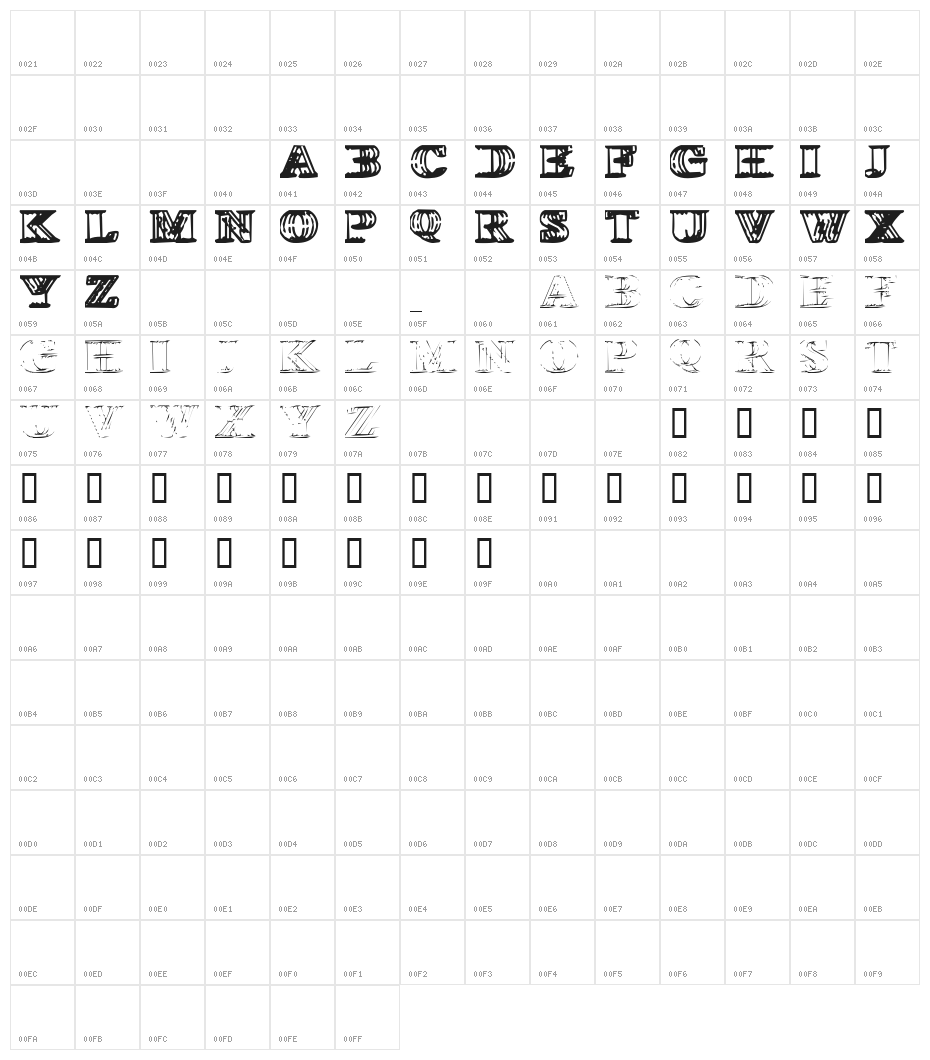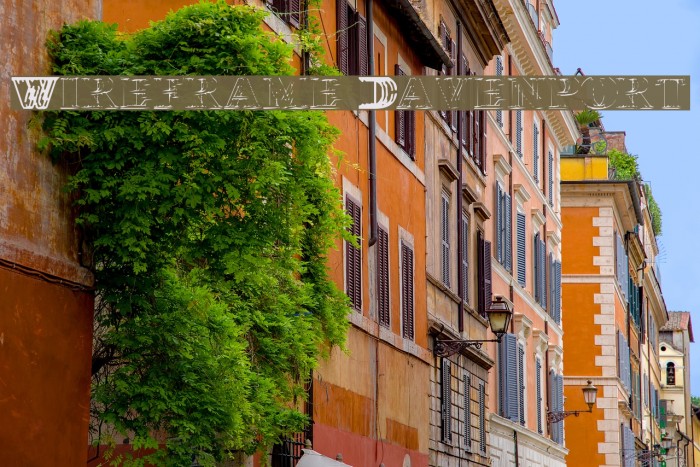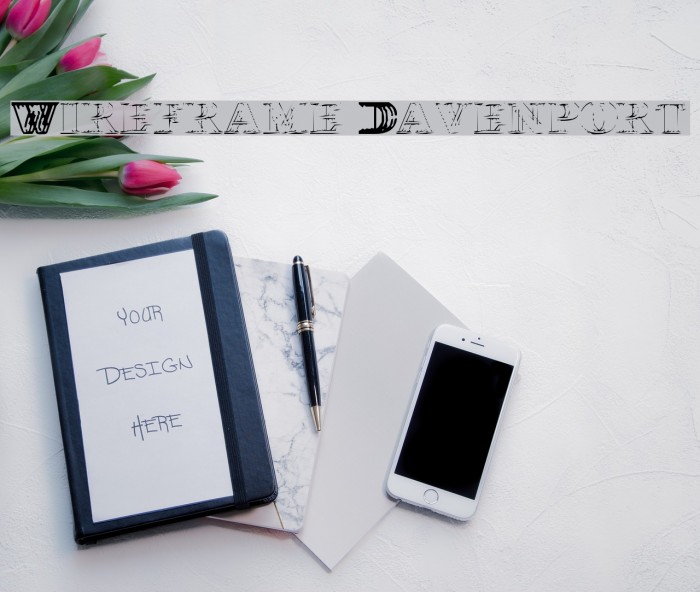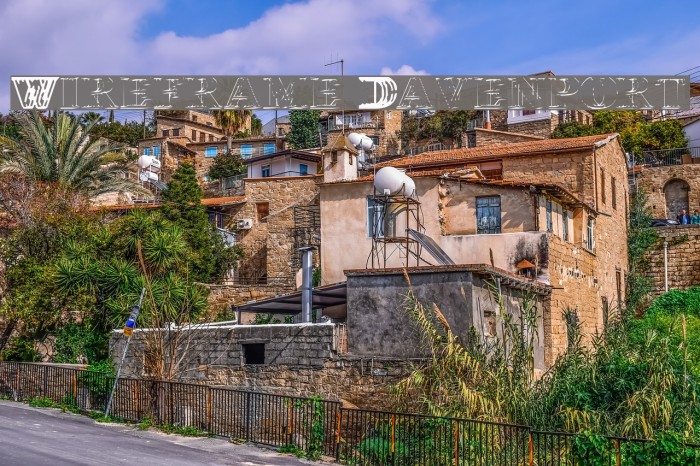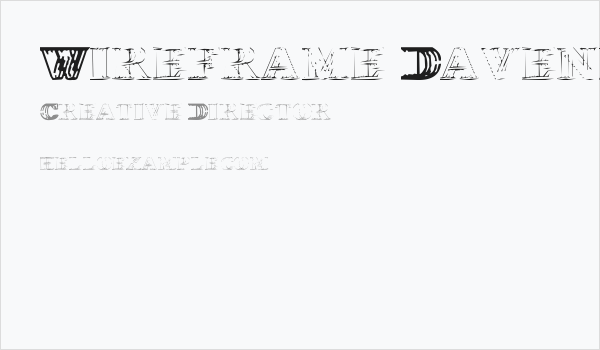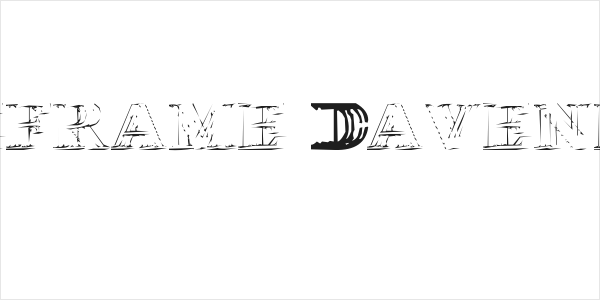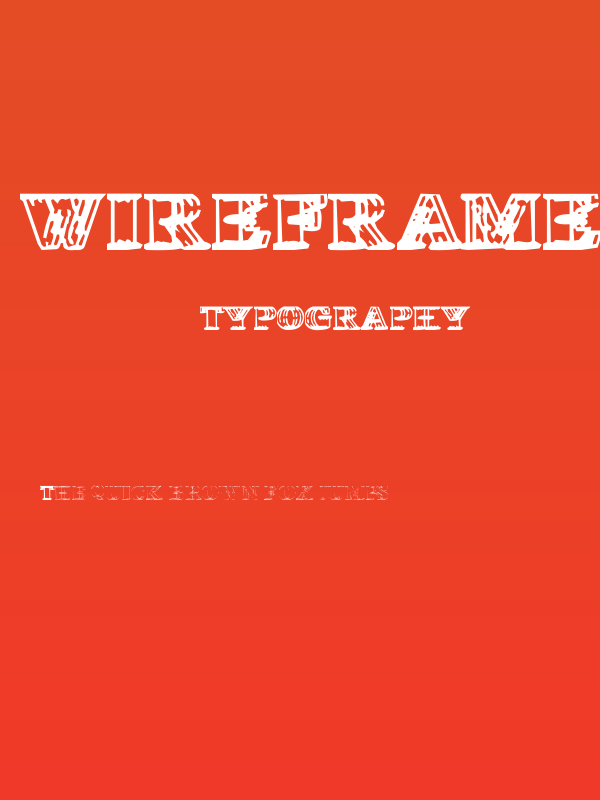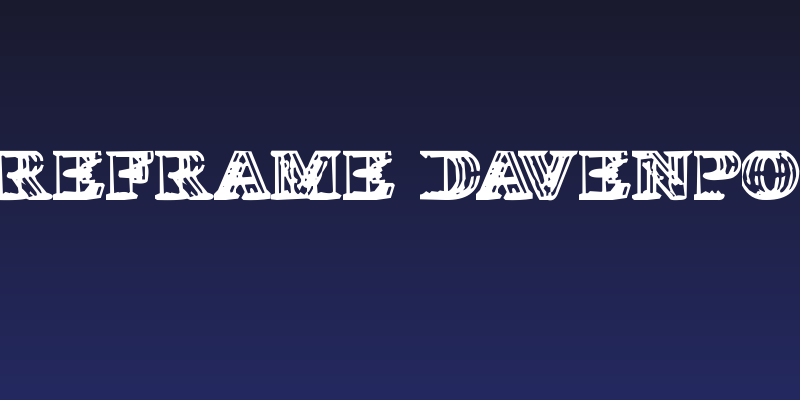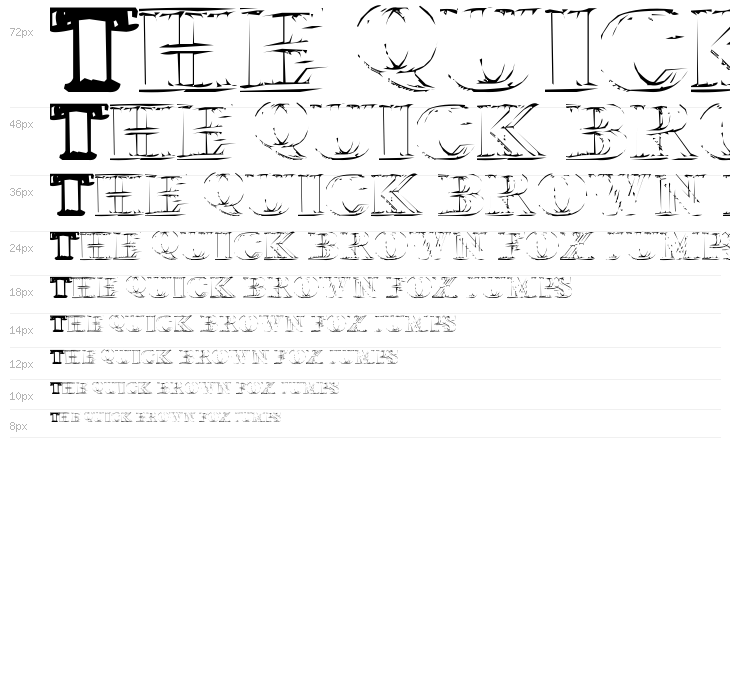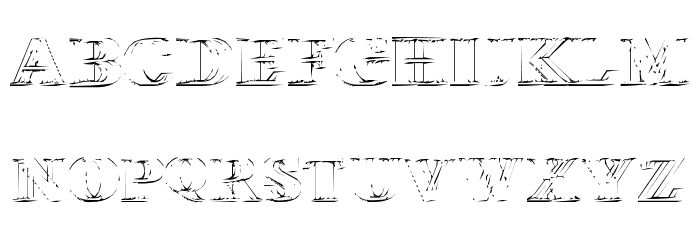
Wireframe-Davenport Font
Wireframe-Davenport Description
This font features a bold and decorative style with a unique wireframe effect. The letters are constructed with a combination of solid and outlined strokes, creating a dynamic and eye-catching appearance. The uppercase letters are particularly striking, with intricate detailing that gives them a sense of depth and dimension. The overall design is reminiscent of vintage signage or industrial aesthetics, making it suitable for projects that require a bold statement. The font maintains a consistent weight throughout, with a slightly condensed width that enhances its visual impact. The character spacing is normal, allowing for clear readability despite the complex design. The contrast in stroke thickness is high, adding to the dramatic effect of the font.
| Proposed Projects | Ideal for posters, branding, and headlines that require a vintage or industrial look. |